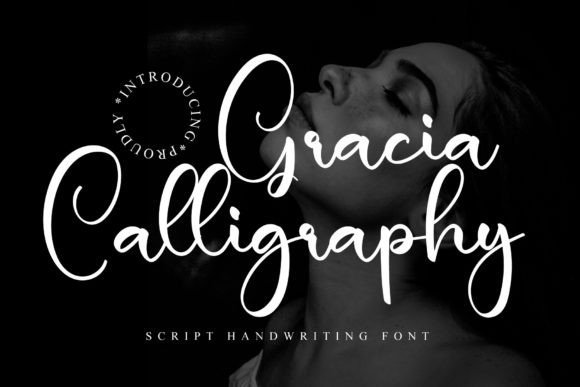
Gracia Calligraphy Font is an elegant and delicate handwritten typeface. This is perfect for your various design needs, such as logos and branding, social media posts, advertisements, business cards, wedding invitation, product design, etc.